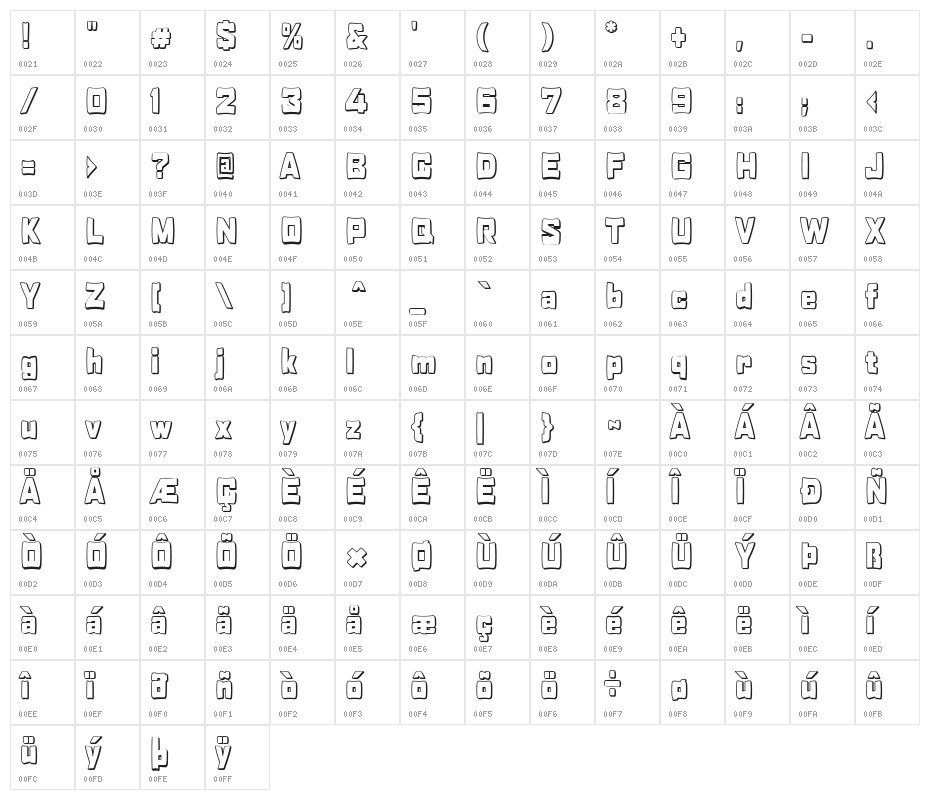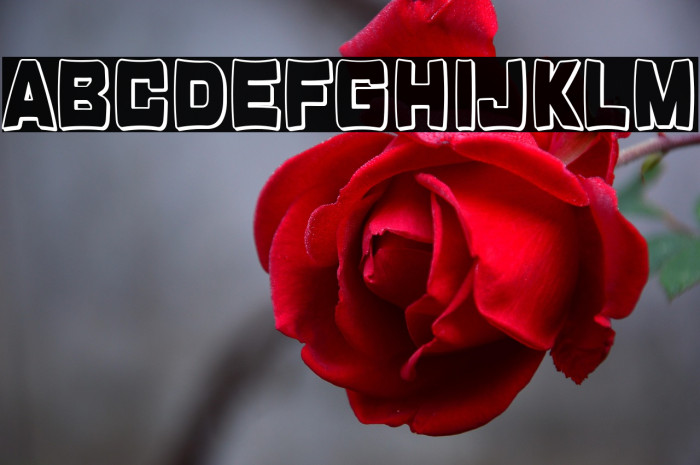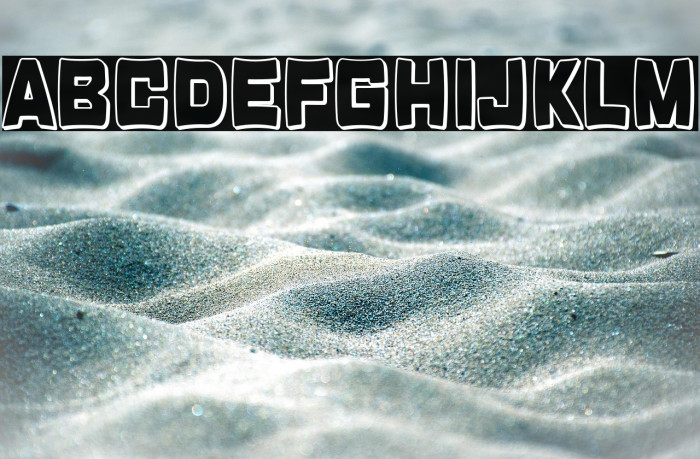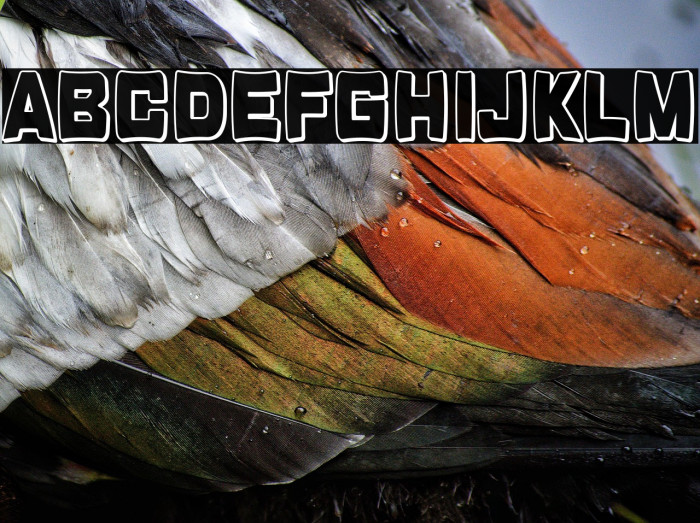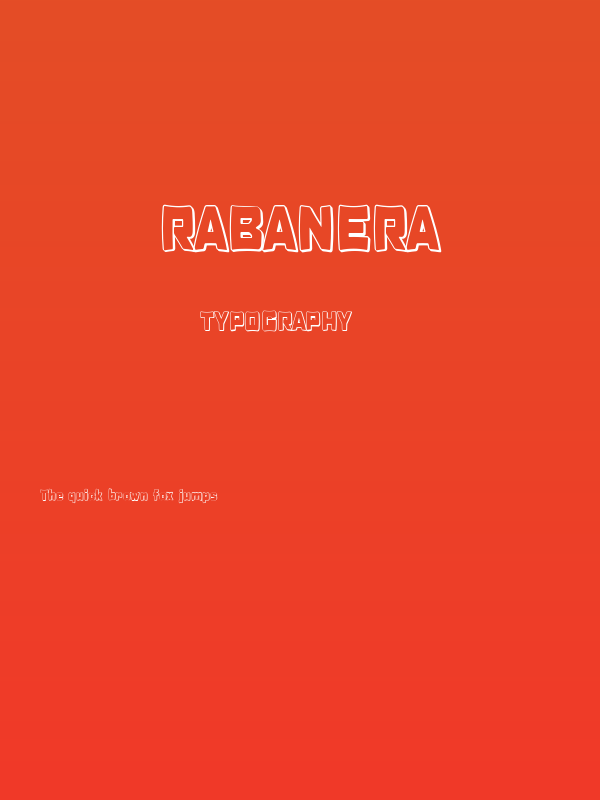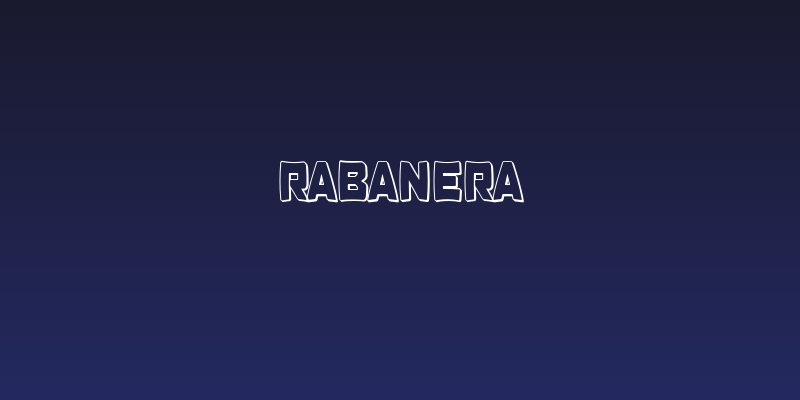
Rabanera Font
Rabanera Description
This font features a bold, playful style with a hand-drawn appearance. The characters are outlined with a thick, uneven stroke, giving them a cartoonish and informal look. The uppercase and lowercase letters maintain a consistent style, with rounded edges and a slightly irregular form that adds to the whimsical feel. The numbers and special characters follow the same design principles, ensuring a cohesive appearance across all glyphs. This font is ideal for projects that require a fun and approachable aesthetic, such as children's books, comic strips, or playful branding.
| Overall Style | Playful, Cartoonish, Informal |
| Proposed Projects | Ideal for children's books, comic strips, playful branding, and informal posters. |